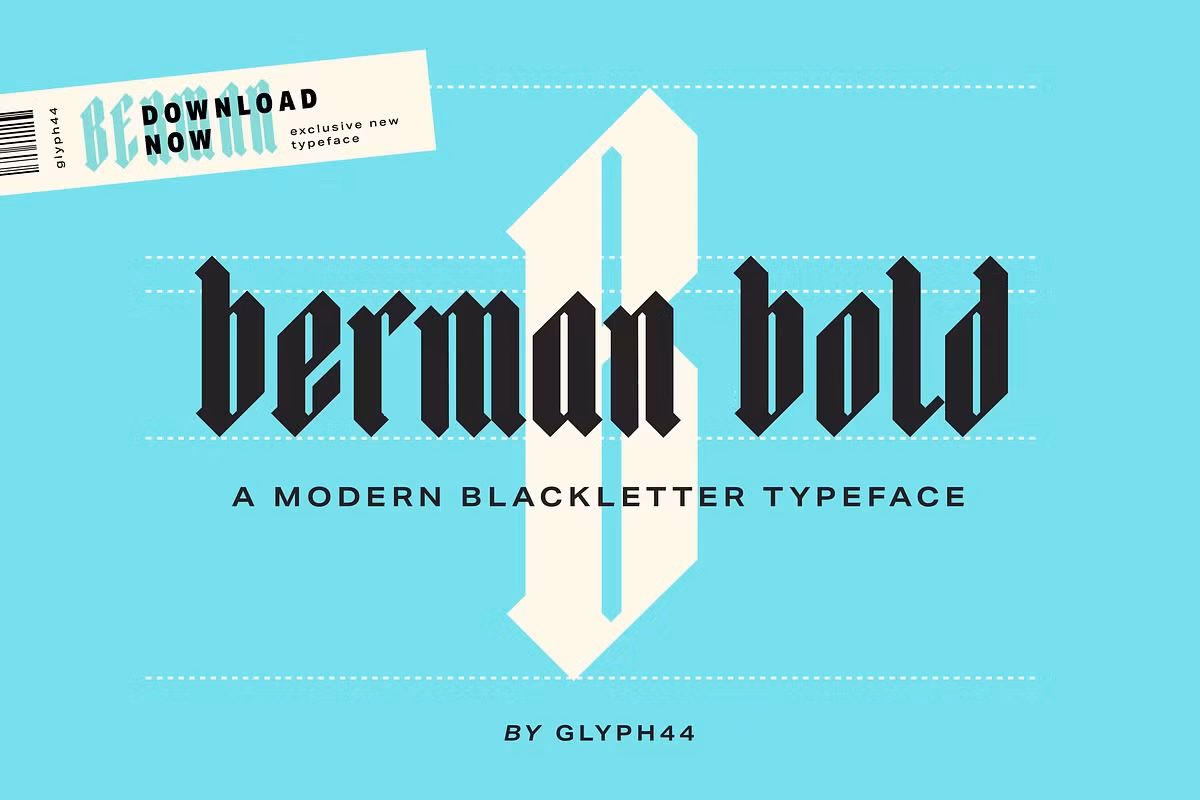
Berman Bold | Blackletter Font Free Download
Berman Bold | Blackletter Font Free Download is a striking and modern take on traditional blackletter typography. With its bold, angular strokes and gothic character, this font is perfect for branding, tattoos, band posters, apparel, logos, and projects that call for a strong, rebellious aesthetic with a touch of historical influence.
Berman Bold stands out with its aggressive structure and sharp detailing while maintaining excellent legibility. It blends the medieval essence of blackletter with a contemporary twist, making it ideal for both edgy and high-impact designs.